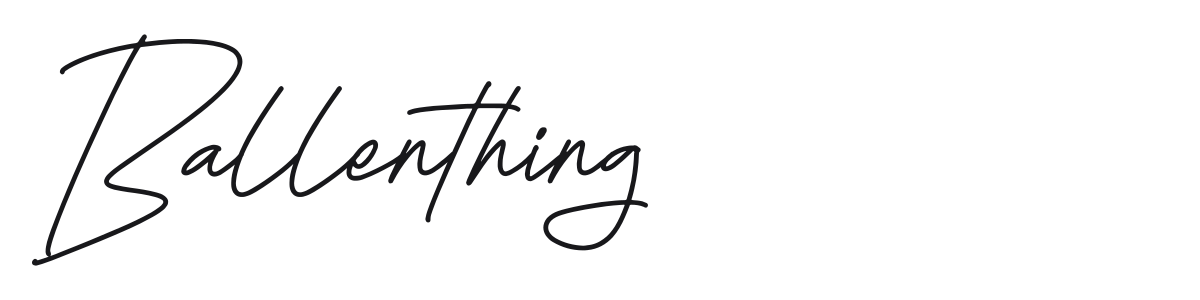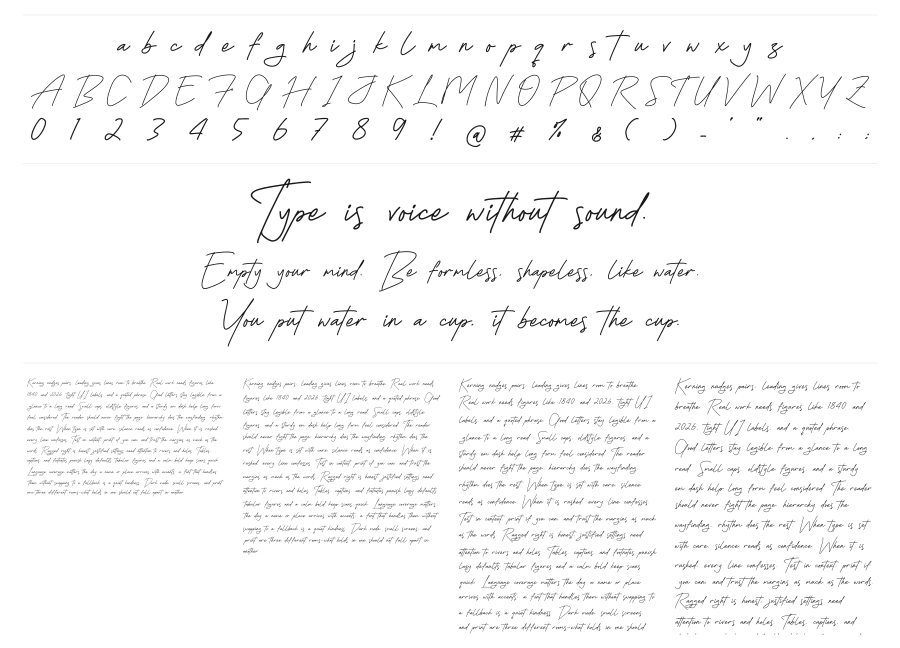
Ballenthing
Ballenthing is a flowing casual script with a relaxed, natural handwritten quality. Thin strokes and looping connections give it an effortless, signature-like rhythm that reads as warm and contemporary. It works best at large sizes where its organic character can breathe.